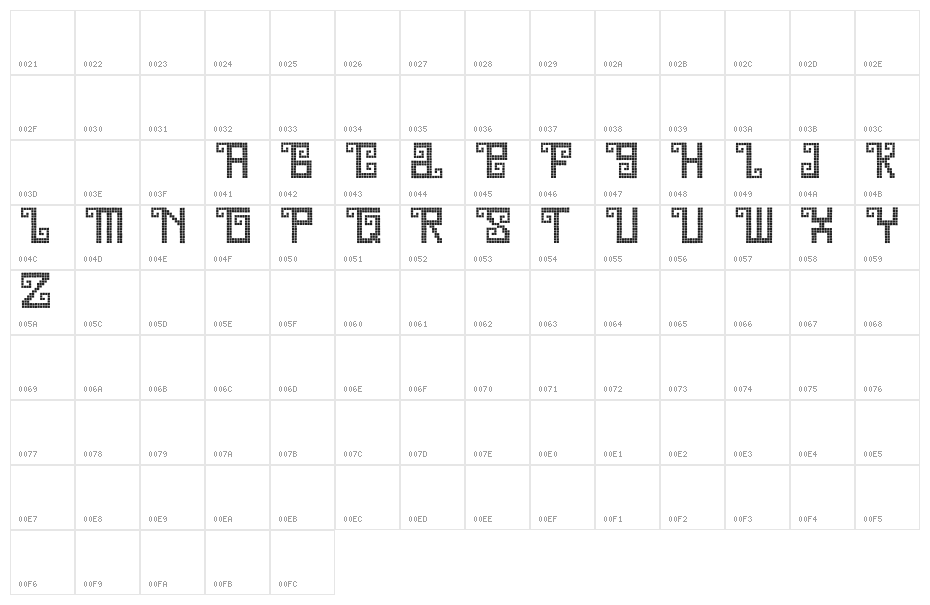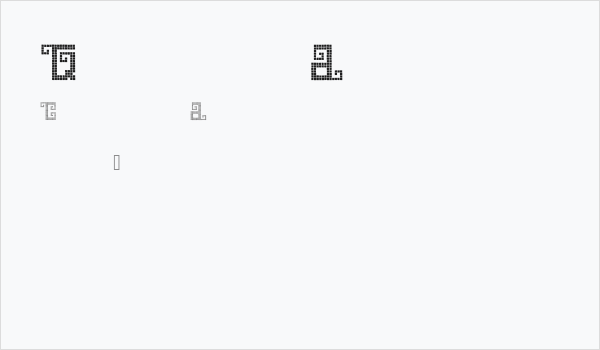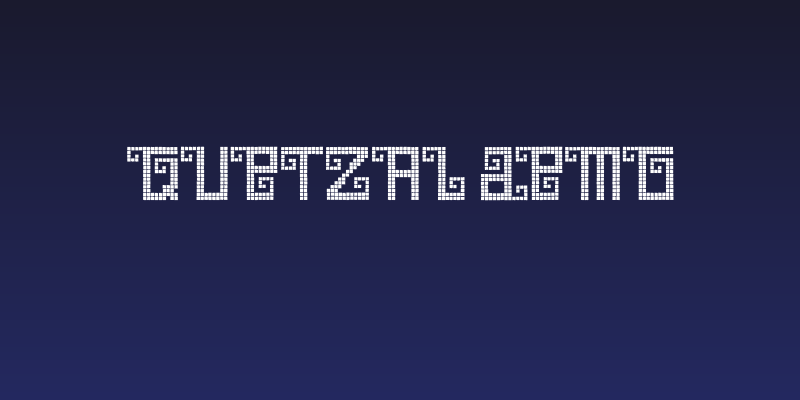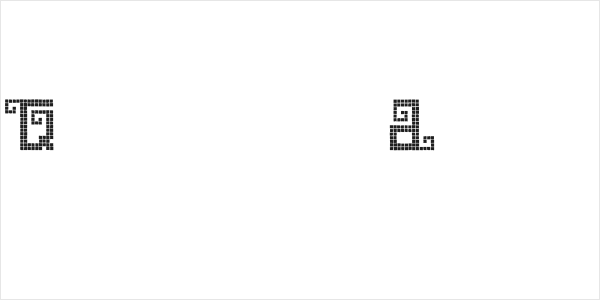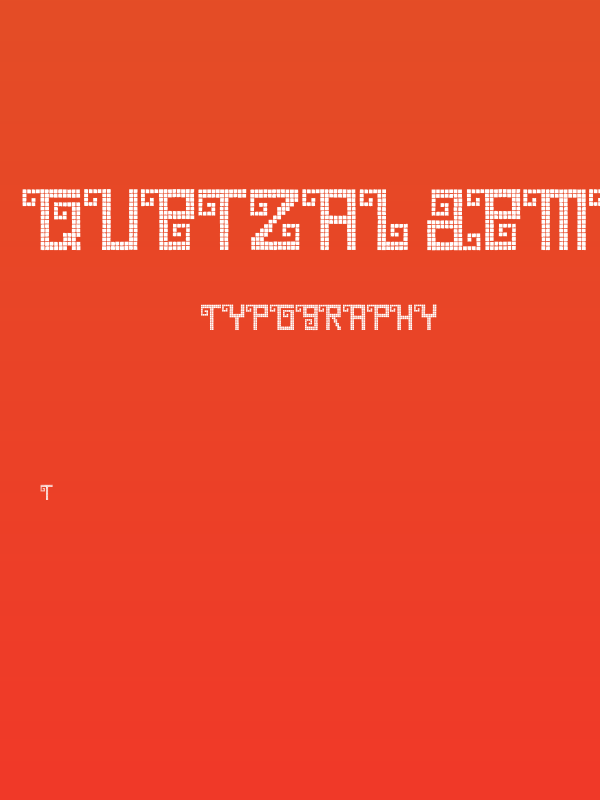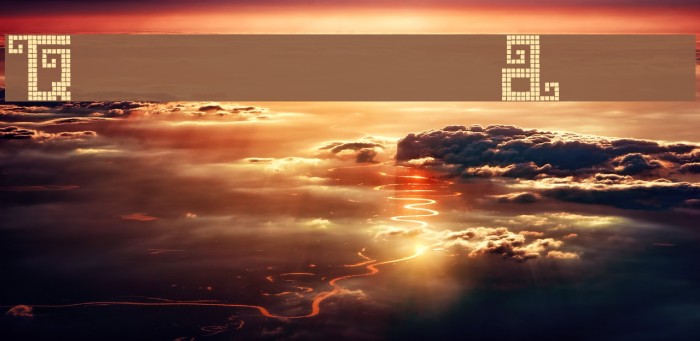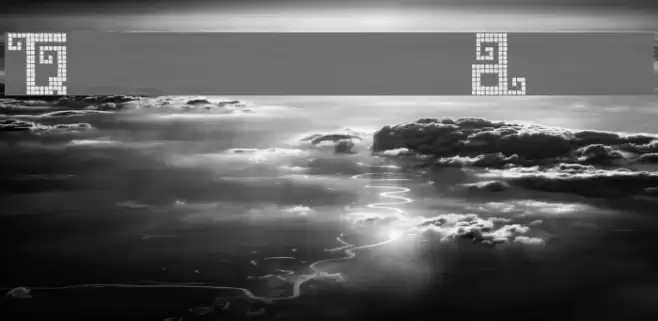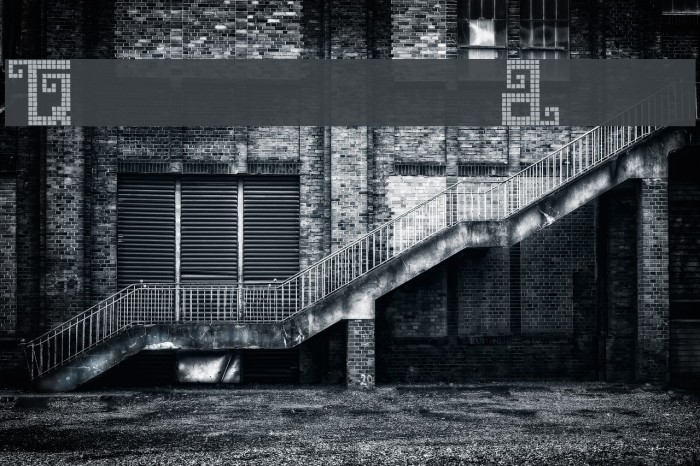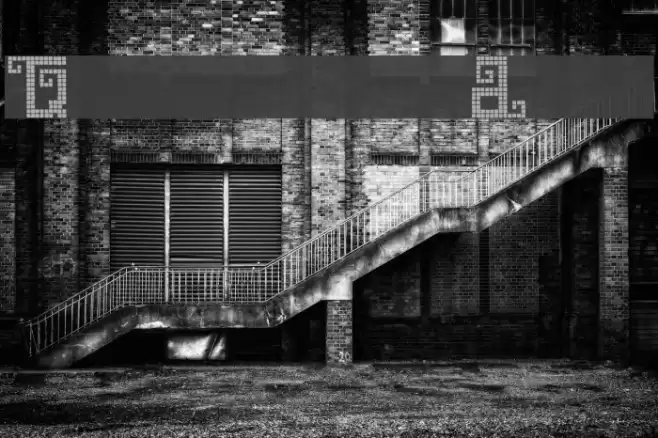
Quetzal Demo Font
Quetzal Demo Description
This font features a unique, decorative style with a pixelated, mosaic-like appearance. Each character is composed of small square blocks, creating a digital, retro aesthetic reminiscent of early video game graphics. The intricate design includes geometric patterns within each letter, adding a layer of complexity and visual interest. The uppercase letters are bold and striking, making them ideal for attention-grabbing headlines or artistic projects. The font's distinct style is both modern and nostalgic, appealing to those looking for a creative and unconventional typeface.
| Overall Style | Modern, Retro |
| Use Case | Headlines, Logos, Artistic projects |
| Proposed Projects | Ideal for video game graphics, retro-themed designs, digital art projects, and creative branding. |